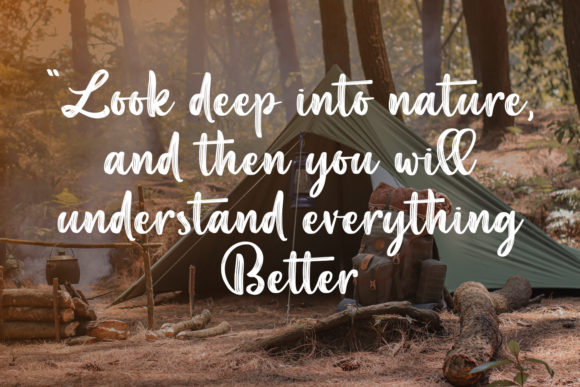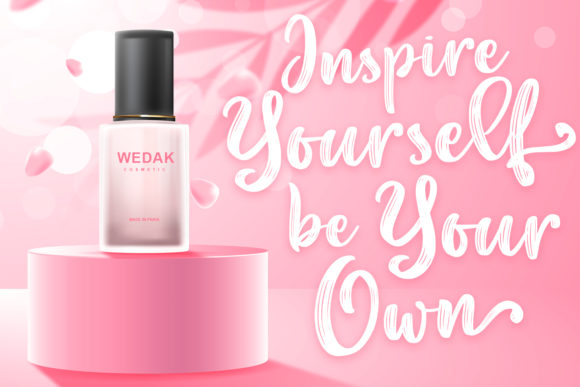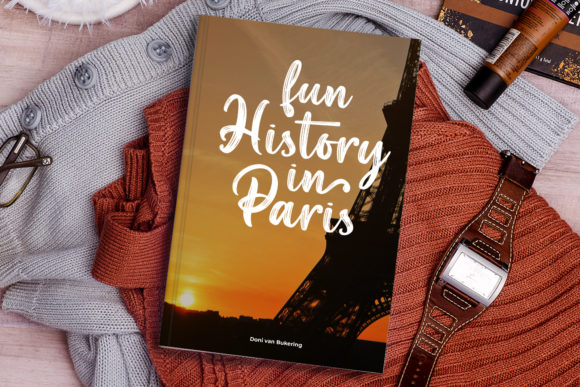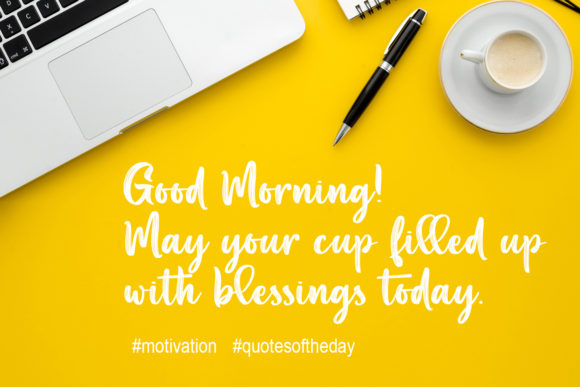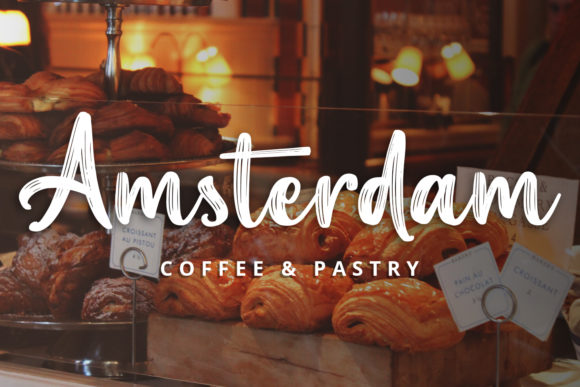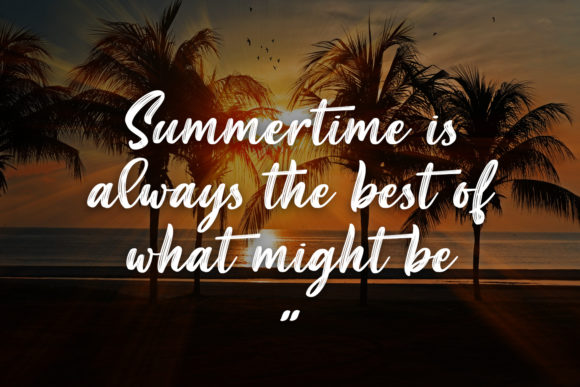
Aesthetic Violet Font: Elevate Your Designs with Elegance
In the realm of typography, few fonts capture the essence of elegance and sophistication as beautifully as Aesthetic Violet. This flowing handwritten font is a masterpiece of design, boasting an elegant touch that instantly elevates any project it’s used in. If you’re on the hunt for a typeface that exudes timeless style and versatility, look no further than Aesthetic Violet. In this article, we’ll dive deep into the world of Aesthetic Violet, exploring its unique characteristics, the inspiration behind its creation, and how you can harness its beauty to create spectacular designs.
The Essence of Aesthetic Violet
Aesthetic Violet is more than just a font; it’s an experience. Described as a flowing handwritten typeface, it brings to mind the delicate strokes of a calligraphy pen, dancing across the page with grace and fluidity. Its elegant touch is unmistakable, offering a level of sophistication that’s hard to achieve with more generic fonts. Whether you’re working on a branding project, crafting a unique invitation, or designing a compelling website, Aesthetic Violet provides the perfect blend of style and readability.
A Timeless Style for Modern Designs
One of the standout features of Aesthetic Violet is its incredibly distinct and timeless style. In an era where design trends come and go, Aesthetic Violet remains eternally relevant. Its classic appeal ensures that your designs won’t look dated in a year or two, making it a smart investment for designers and crafters who want their work to stand the test of time. The font’s versatility is another significant advantage, seamlessly fitting into a wide range of design contexts, from feminine and whimsical to sophisticated and professional.
Inspiration and Design Philosophy
The creation of Aesthetic Violet was inspired by a desire to marry traditional calligraphic techniques with modern design sensibilities. The font’s designers sought to create a typeface that would not only capture the elegance of handwritten script but also offer a fresh, contemporary look. The result is a font that feels both nostalgic and cutting-edge, perfect for designers looking to infuse their projects with a sense of heritage and innovation.
Using Aesthetic Violet in Your Projects
So, how can you make the most of Aesthetic Violet in your designs? Here are a few suggestions:
- Branding and Logotypes: Aesthetic Violet’s unique style makes it an excellent choice for logos and brand identities, especially for businesses in the creative, beauty, or lifestyle sectors.
- Wedding and Event Stationery: The font’s elegance and romance make it perfect for wedding invitations, save-the-dates, and other event-related materials.
- Web Design: Use Aesthetic Violet to create stunning website headers, pull quotes, or even entire content sections for a more personalized feel.
- Packaging and Product Design: Add a touch of sophistication to your product labels, packaging, or advertising materials with this beautiful font.
Tips for Working with Aesthetic Violet
To truly fall in love with Aesthetic Violet and make it shine in your designs, consider the following tips:
- Experiment with Colors: Aesthetic Violet looks stunning in a variety of colors, but it’s particularly striking in pastel shades, rich jewel tones, and metallic finishes.
- Play with Ligatures: If your design software supports it, experiment with ligatures to add an extra layer of elegance and fluidity to your text.
- Mix and Match: Don’t be afraid to combine Aesthetic Violet with other fonts to create contrast and hierarchy in your designs.
Aesthetic Violet is more than just a font; it’s a design statement. Its elegant touch, timeless style, and versatility make it an invaluable tool for designers and crafters looking to create beautiful, memorable designs. Whether you’re crafting a brand identity, designing for an event, or simply looking to elevate your digital content, Aesthetic Violet offers the perfect blend of style, sophistication, and charm. So why wait? Fall in love with Aesthetic Violet and let it transform your designs into spectacular works of art.